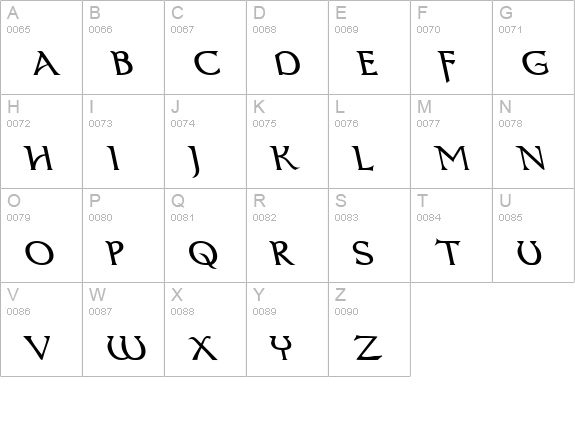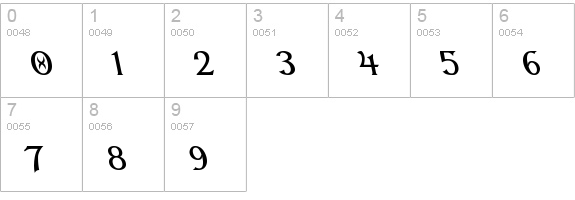
Dumbledor 3 Rev Italic is a distinctive, italic variant in the Dumbledor typeface family \xE2\x80\x94 well suited to design and typography projects.
Dumbledor 3 Rev Italic is a modern and elegant font that exudes sophistication and style. With its sleek and slanted design, this typeface is perfect for adding a touch of flair to any project or design. Whether you're creating a logo, invitation, or website, Dumbledor 3 Rev Italic will make your text stand out. The best part? Dumbledor 3 Rev Italic is completely free to download at FontsMarket.com. This means you can easily access this stunning font without having to spend a penny. Don't miss out on the opportunity to enhance your creations with this beautiful typeface today!